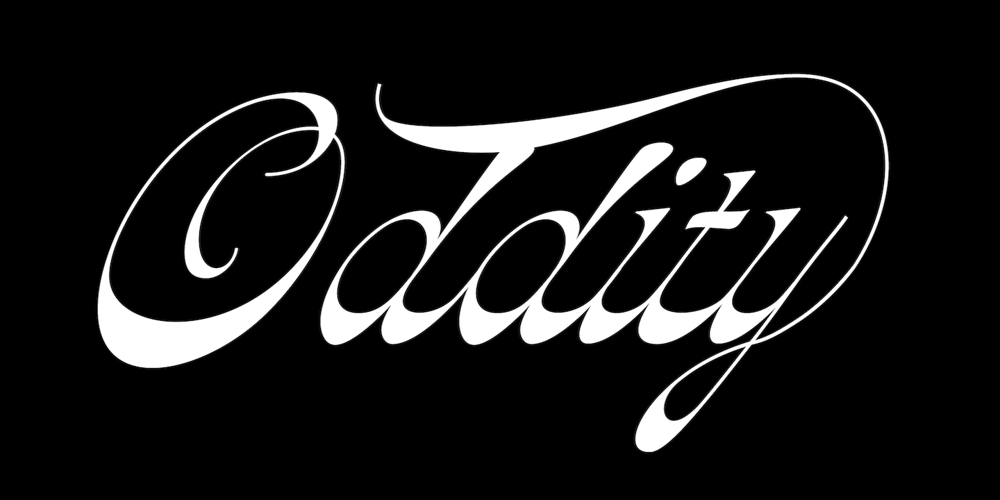
Oddity Script Font Family was designed by Giuseppe Salerno, Paco González and published by Resistenza. Oddity Script contains 1 styles and family package options. Oddity is a calligraphic script font with reversed contrast with some exceptions in some letters, adding more legibility and rhythm. This new typeface has a nostalgic Lo-Fi vibe, a tribute to a past era. When experimenting we were finally breaking rules to create a really openminded letterset. Using ideas from English calligraphy and our own Nautica family as a starting point, we created this classy 70s flavour type design. Its modern concept transforms a vintage design trend into an absolutely contemporary typeface. Oddity is a perfect match for quote designs, it is simply outstanding when used at very large sizes. You will love to use this font for posters, branding, magazines, book covers, packaging, or products.